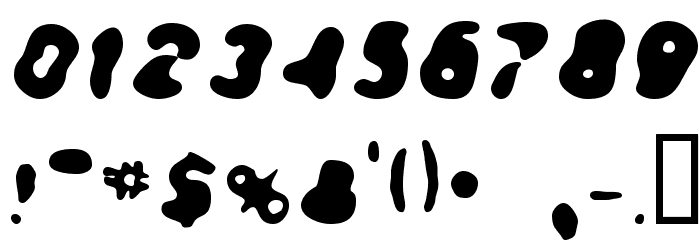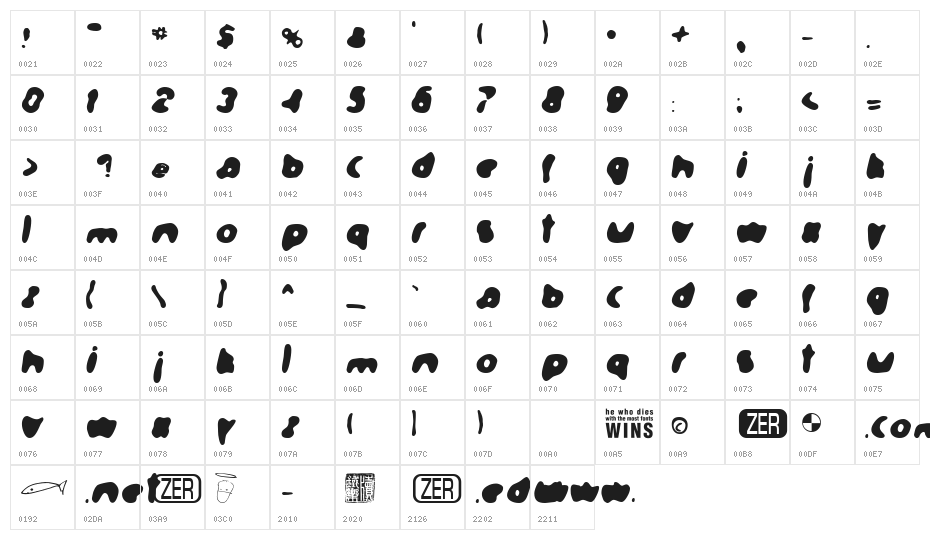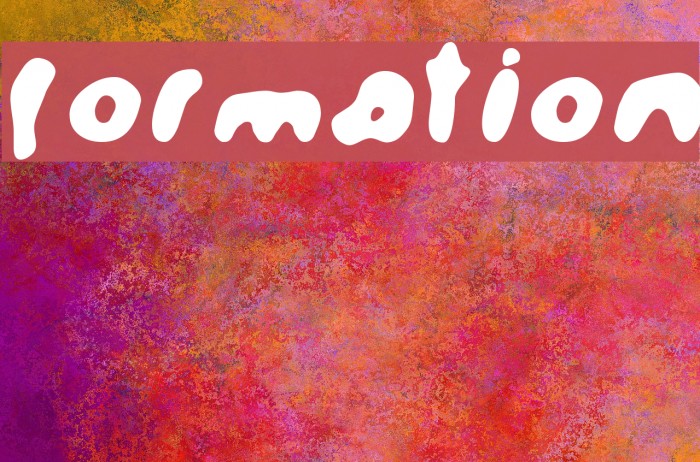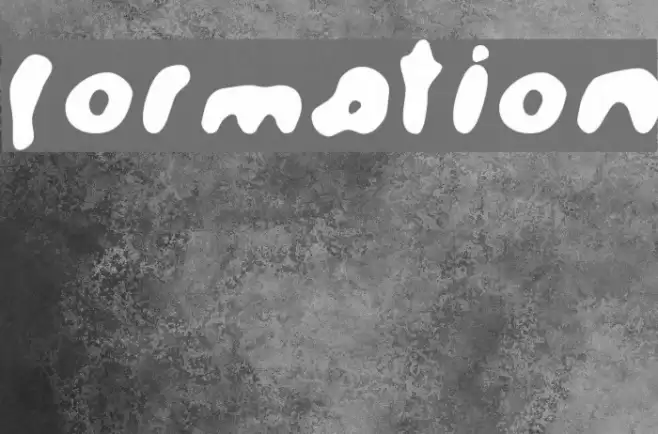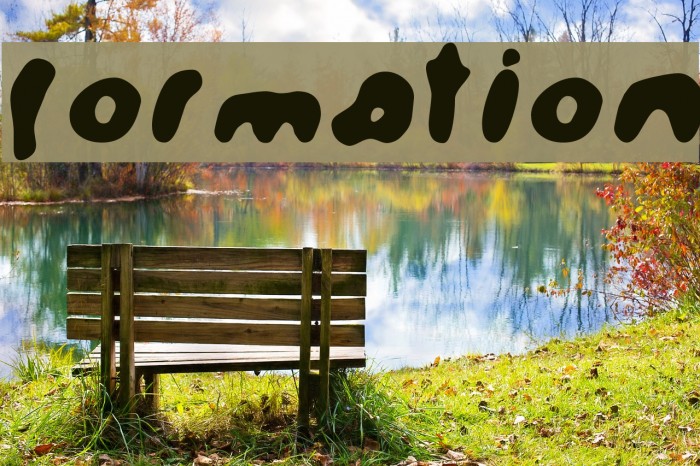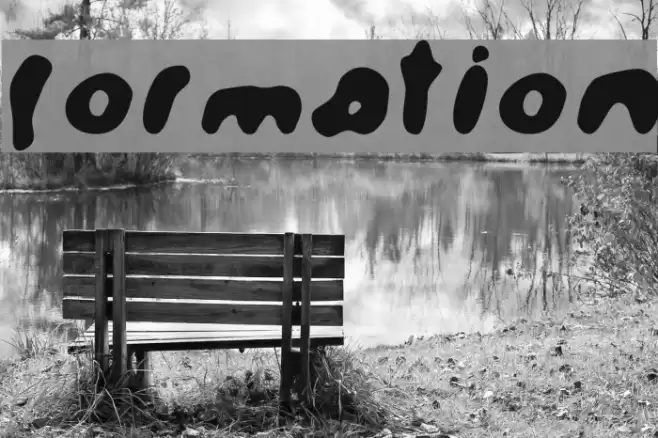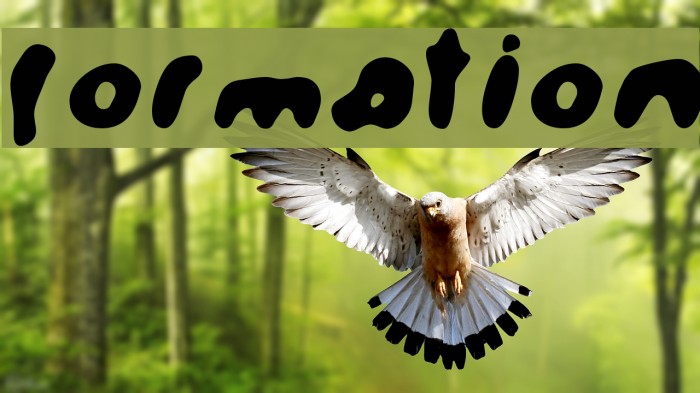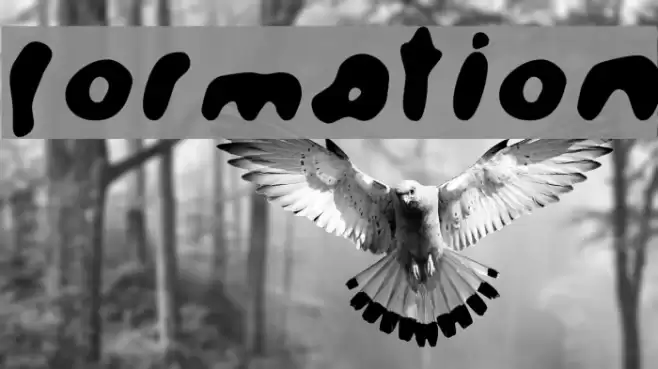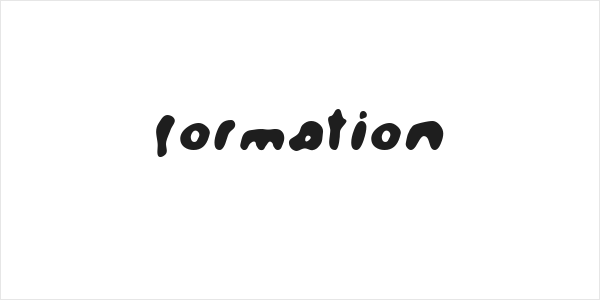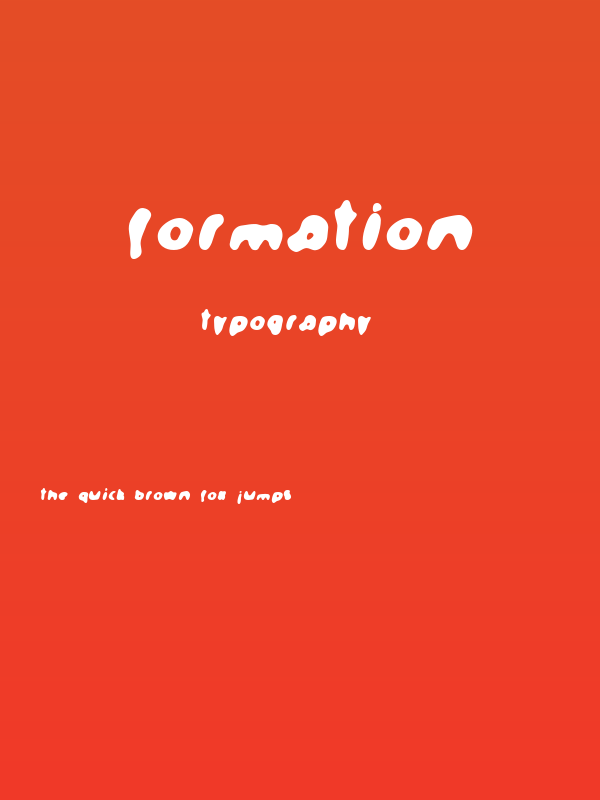
Formation Font
Formation Description
This font features a playful and bold design with a bubbly, organic appearance. The characters are rounded and irregular, giving them a whimsical and informal feel. The strokes are thick and consistent, creating a strong visual impact. The font's unique style makes it stand out, with each letter having a distinct, almost hand-drawn quality. The numbers and special characters follow the same playful design, ensuring a cohesive look across all elements. This font is ideal for projects that require a fun and engaging aesthetic.
| Proposed Projects | Perfect for children's books, playful branding, party invitations, and creative posters. |